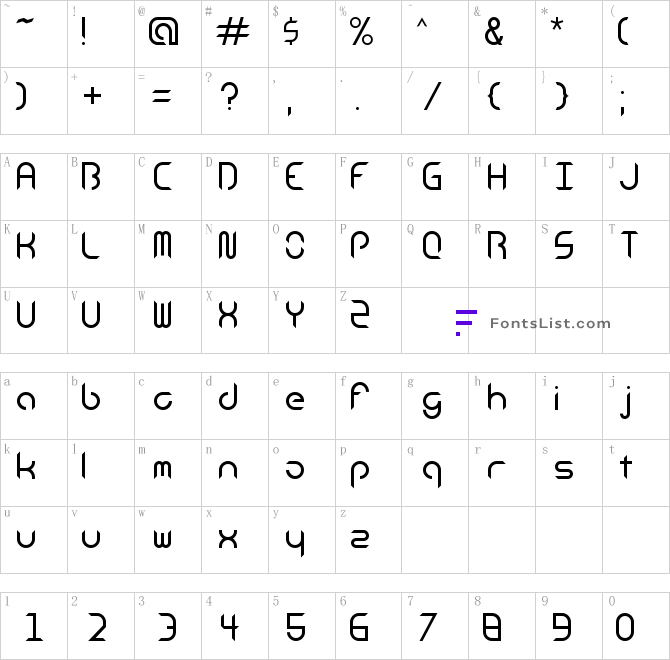
- Font Name:Android Insomnia_
Android-Insomnia-Regular.ttf is a very beautiful artistic font, Android-Insomnia-Regular.ttf is widely used in the design and printing of various books and pictures,Android-Insomnia-Regular.ttf has a strong visual impact,Android-Insomnia-Regular.ttf is a commonly used font in newspapers, magazines and books, and is used in posters, e-commerce Poster design, store design, logo design, font design and other fields.Android-Insomnia-Regular.